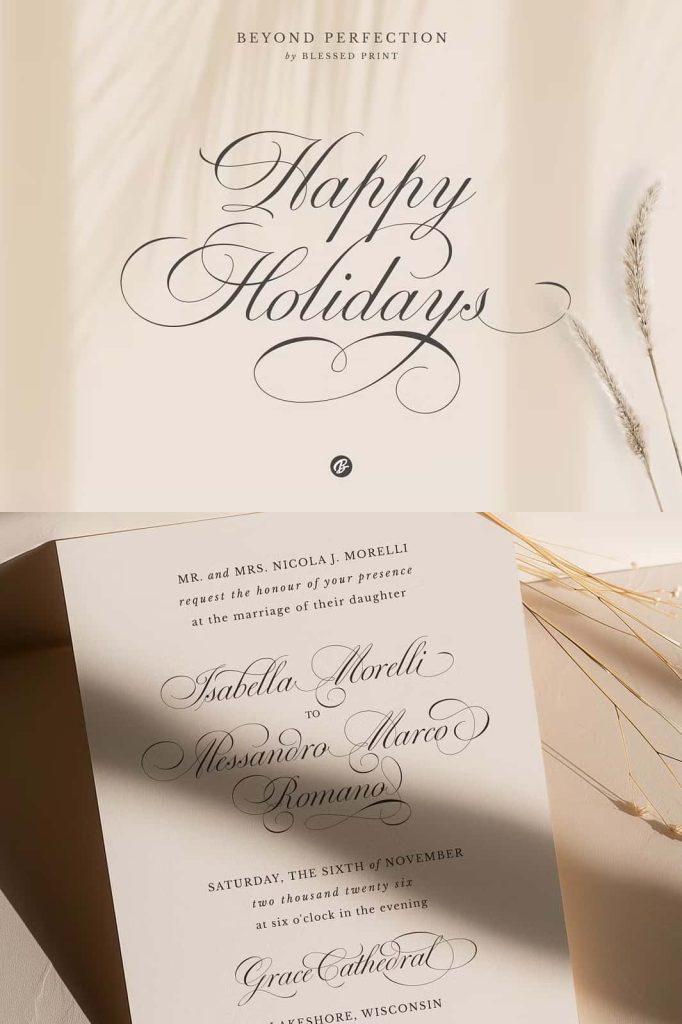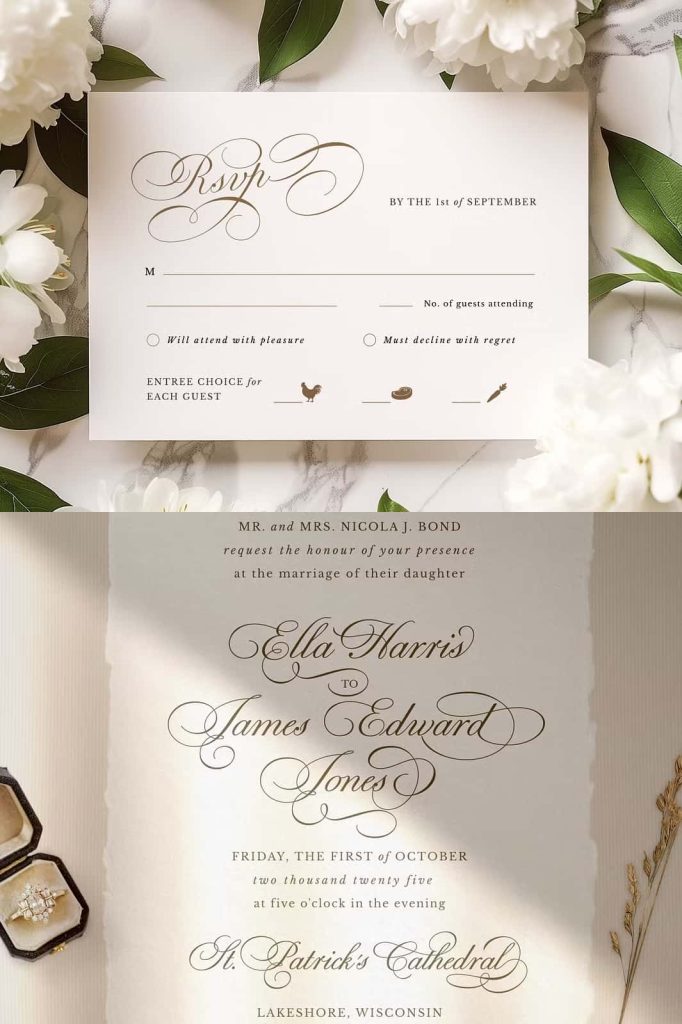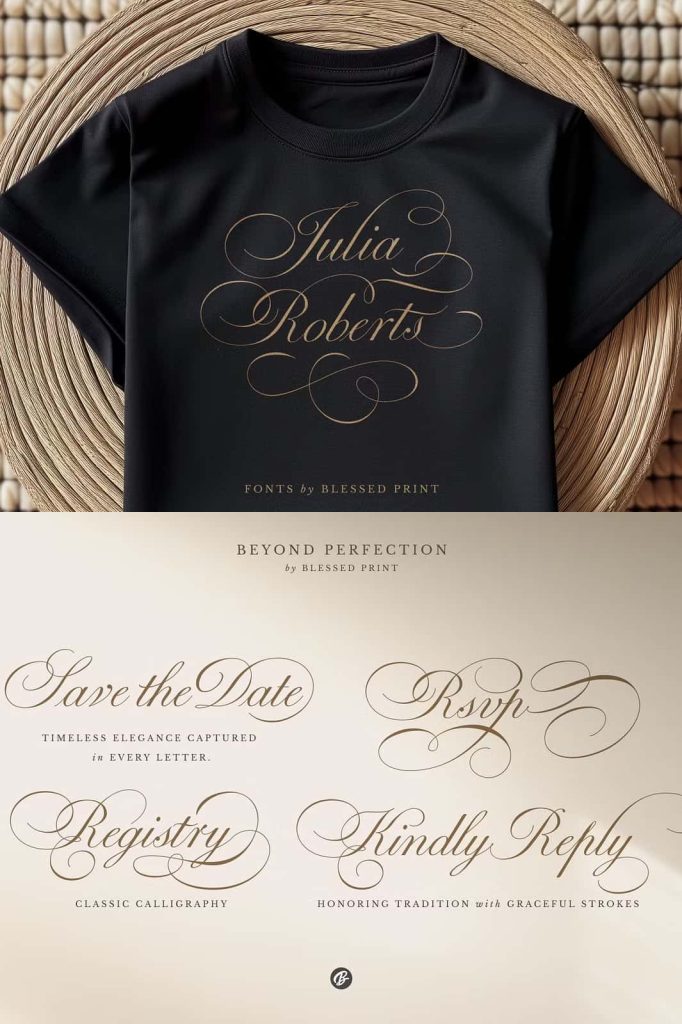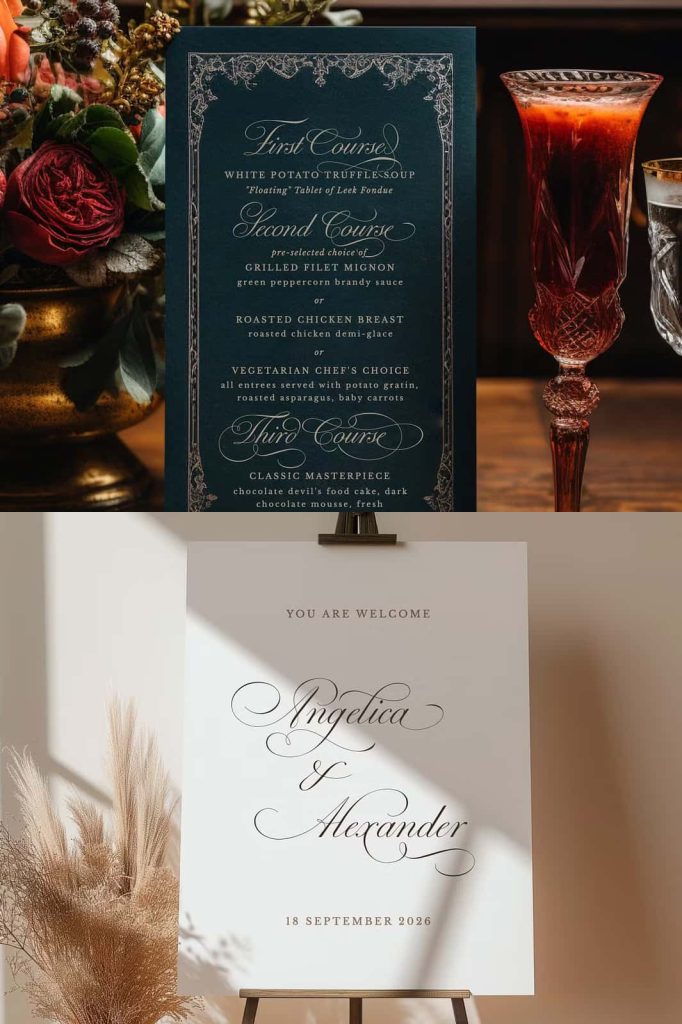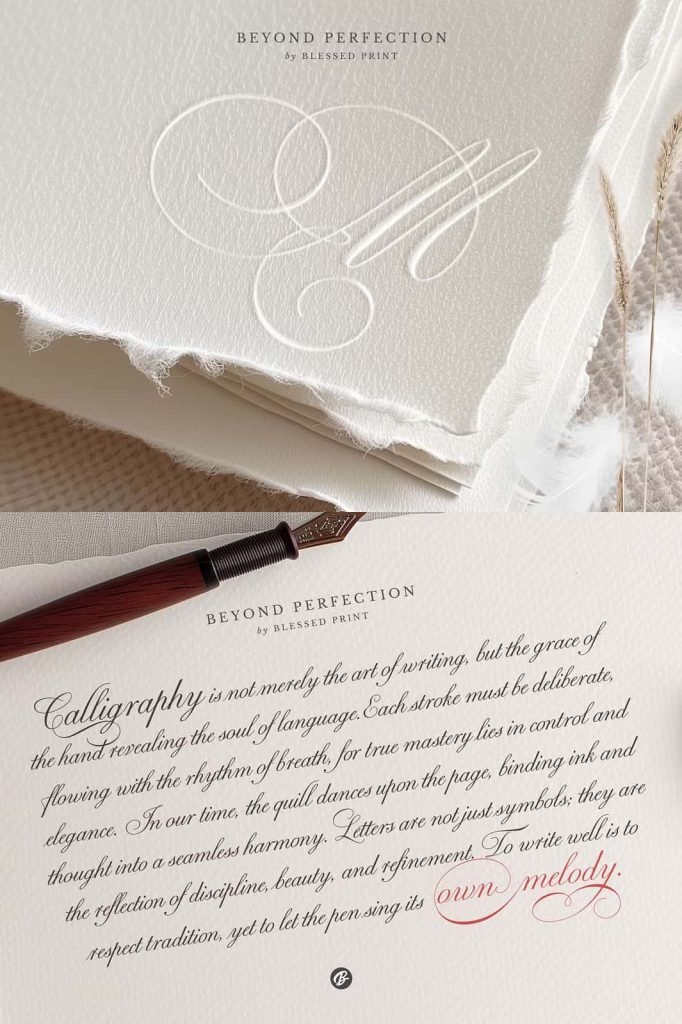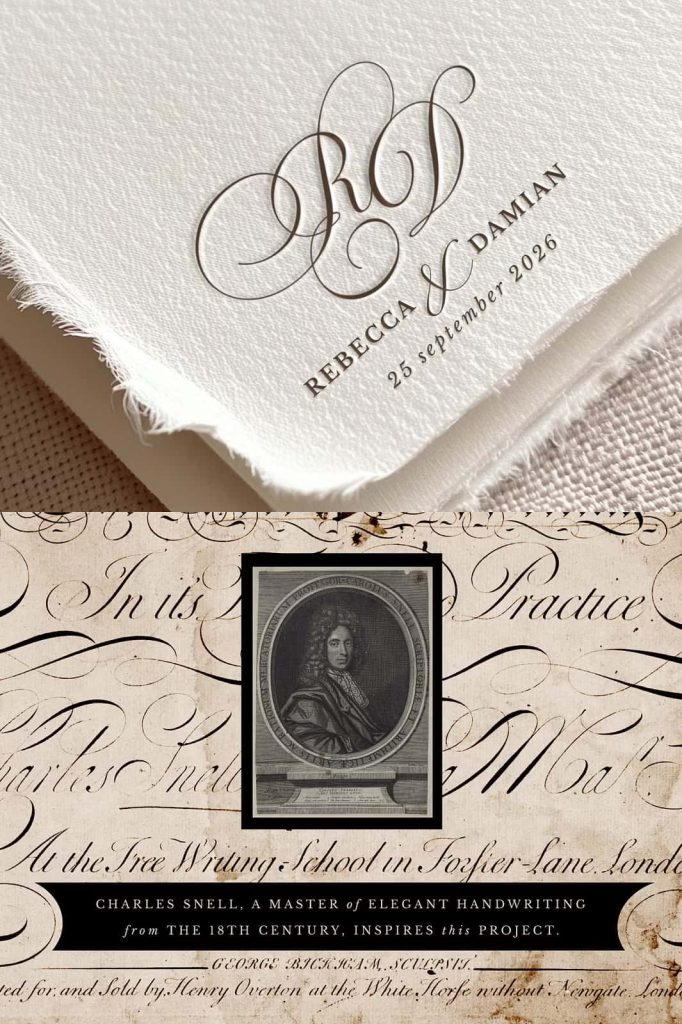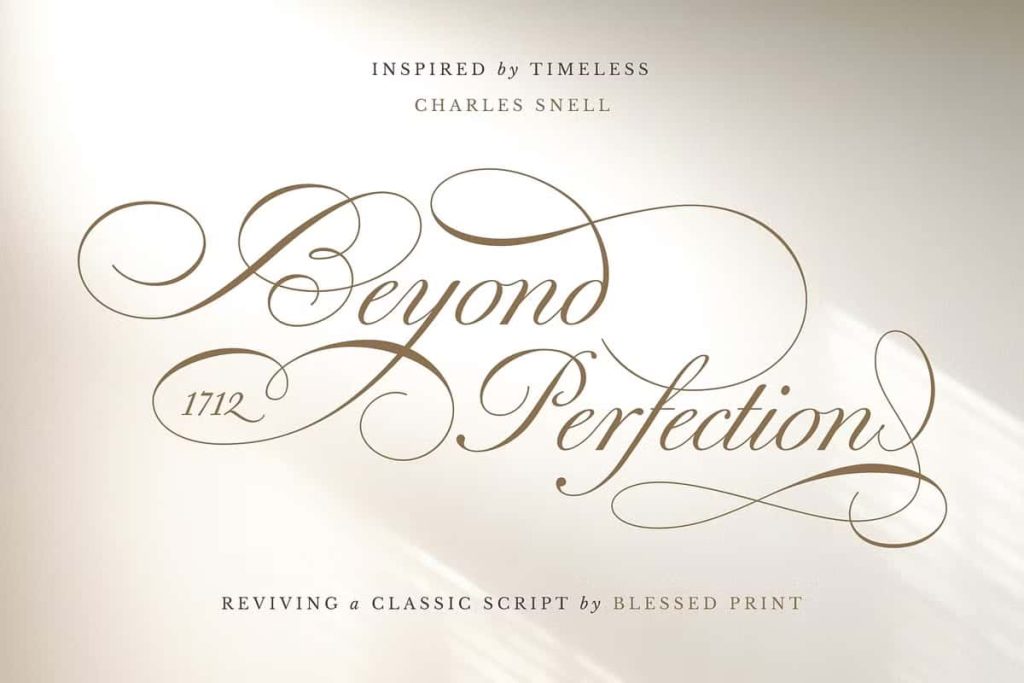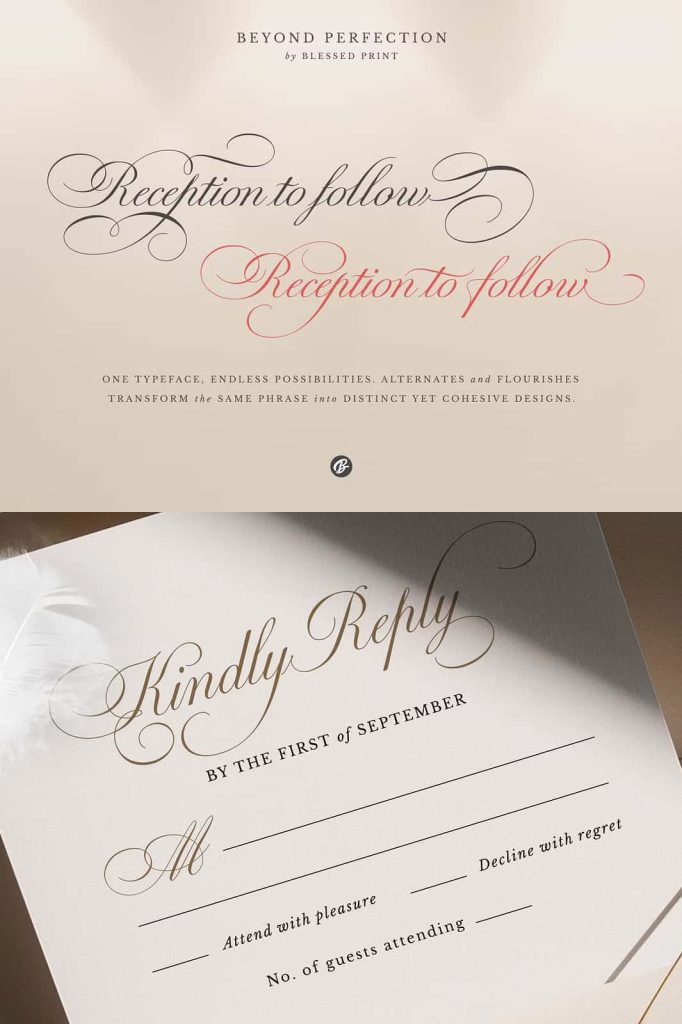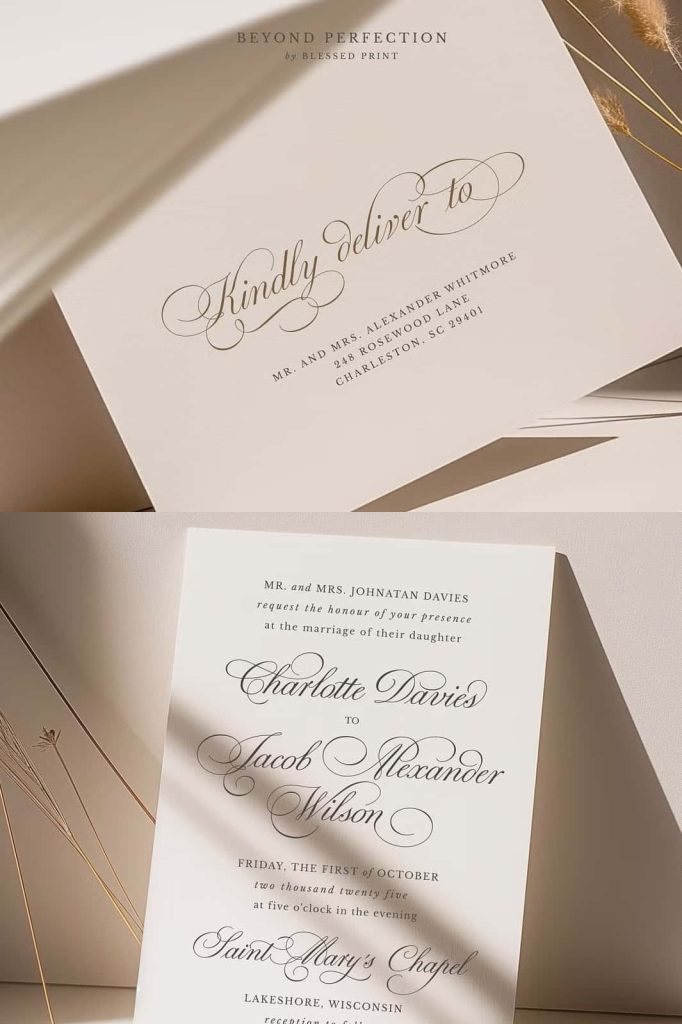
Beyond Perfection Script: A Romantic Script Font with Timeless Elegance
Beyond Perfection Script is a refined and expressive script font that reimagines graceful, sophisticated lettering for today’s design demands. Inspired by classic calligraphic traditions, this font preserves timeless charm while introducing modern balance and fluidity. Every stroke flows with intention, creating a romantic and polished aesthetic that elevates visual communication across both print and digital media.
A Modern Interpretation of Classic Script Style
Beyond Perfection Script draws from traditional handwriting and formal calligraphy, yet it adapts seamlessly to contemporary design environments. The letterforms maintain elegant proportions and smooth connections, allowing text to feel natural, luxurious, and confident. This thoughtful reinterpretation ensures that the font feels fresh and relevant without losing its historical beauty.
The balance between tradition and innovation makes Beyond Perfection Script a versatile choice for designers who want to honor classic elegance while embracing modern design trends. It delivers visual harmony, allowing headlines and decorative text to feel expressive without overwhelming the composition.
Romantic Character with Sophisticated Presence
This script font radiates romance and refinement, making it especially suitable for emotionally driven design projects. The flowing curves and graceful transitions convey warmth, intimacy, and celebration. Beyond Perfection Script brings a sense of artistry to every word, transforming simple text into a memorable visual experience.
Its sophisticated presence allows it to perform beautifully in luxury contexts. Whether used for high-end branding or formal events, the font communicates exclusivity and care, helping designers create visuals that feel meaningful and thoughtfully crafted.
Exquisite Flourishes for Creative Expression
One of the defining features of Beyond Perfection Script is its beautifully designed flourishes. These decorative elements add rhythm and movement to the typography, giving designers the freedom to create dramatic and elegant compositions. The flourishes enhance individuality while maintaining legibility and balance.
These details open up endless creative possibilities for logos, titles, and decorative text. Designers can emphasize key words, create flowing visual paths, or add subtle sophistication depending on the needs of the project. This flexibility allows Beyond Perfection Script to adapt to both minimal and ornate designs.
Perfect for Weddings, Branding, and Elegant Signage
Beyond Perfection Script excels in wedding-related designs, including invitations, save-the-dates, menus, and ceremony signage. Its romantic tone and graceful strokes align naturally with themes of love, celebration, and commitment. The font enhances the emotional impact of wedding materials, making each piece feel personal and timeless.
In branding, the font supports businesses that value elegance and personality. It works exceptionally well for boutique brands, beauty products, fashion labels, and creative entrepreneurs who want to convey sophistication and authenticity. When applied to signage, Beyond Perfection Script captures attention while maintaining an upscale and refined appearance.
Inspired by Beloved Script Fonts
Designers who admired popular script fonts such as Mozart and Juliette will find Beyond Perfection Script especially captivating. It builds upon the strengths of these beloved styles while expanding creative opportunities through enhanced flourishes and improved balance. This evolution results in a font that feels familiar yet distinctly elevated.
The font encourages exploration and experimentation, allowing designers to craft unique typographic identities that stand apart. Its expressive nature makes it an excellent choice for projects that demand beauty, clarity, and artistic depth.
A Script Font Designed to Enchant and Inspire
Beyond Perfection Script stands as a celebration of elegance, romance, and creative freedom. Its flowing forms, classic charm, and modern adaptability make it a valuable asset for designers seeking to create refined and emotionally resonant designs. The font transforms words into graceful visual statements that leave a lasting impression.
Whether used for wedding invitations, luxury branding, or sophisticated signage, Beyond Perfection Script delivers a polished and enchanting typographic experience. It is an ideal choice for those who want to move beyond ordinary scripts and embrace a font that truly lives up to its name.